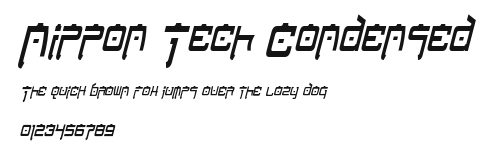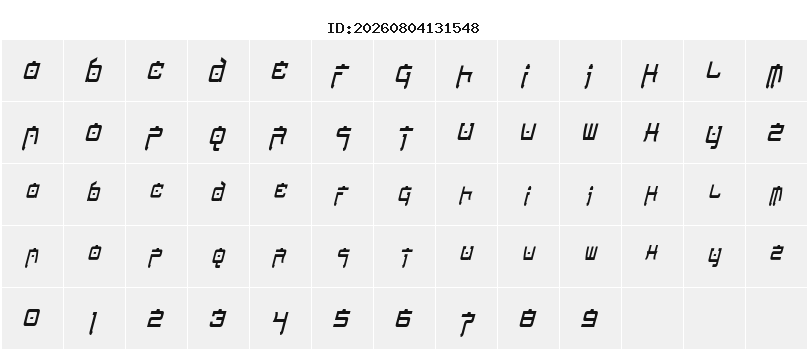
Nippon Tech Condensed Preview
• Font Name: Nippon Tech Condensed
• Full Font Name: Nippon Tech Condensed Italic
• Designer: Neale Davidson
About Nippon Tech Condensed.ttf
Nippon Tech Condensed.ttf is a modern, elegant sans-serif font designed for ultimate readability and visual harmony. Perfect for branding, headlines, web design, and print materials.